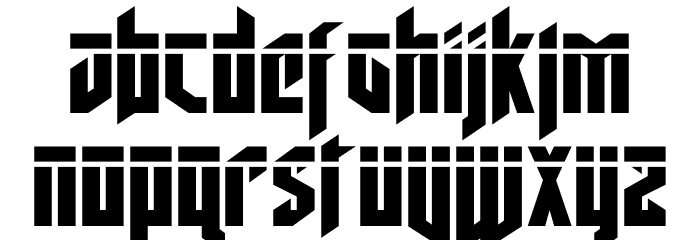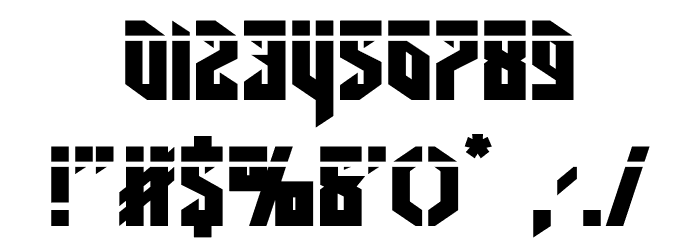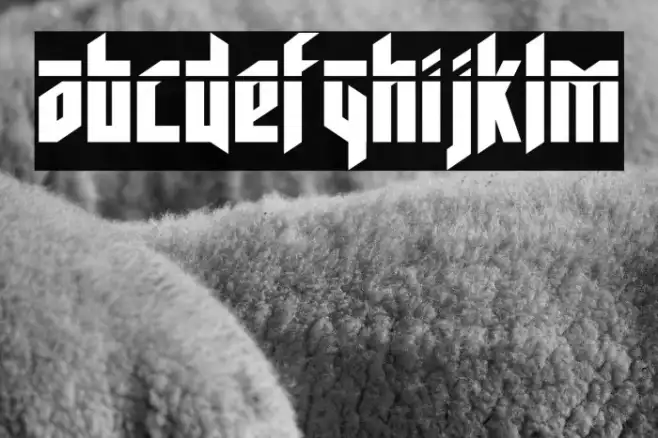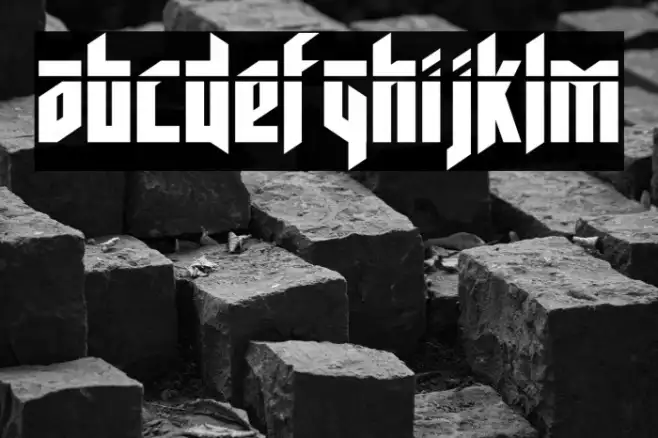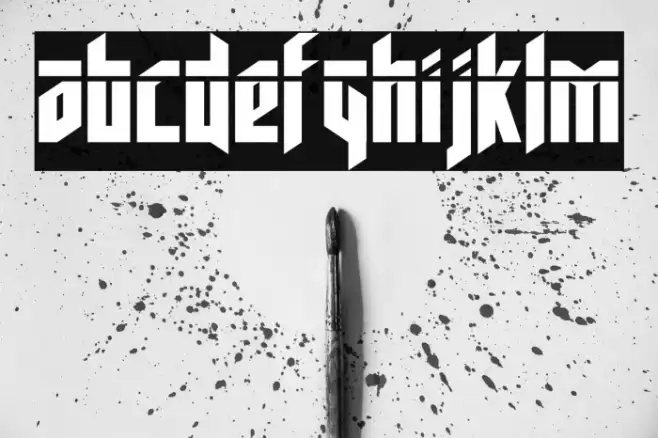
Deathshead Laser Font
This font features a bold, angular design with sharp edges and geometric shapes, creating a futuristic and aggressive appearance. The characters are heavily stylized, with a consistent use of straight lines and acute angles, giving it a distinct, modern look. The uppercase and lowercase letters maintain a uniform height, contributing to its blocky and compact feel. The numbers and special characters follow the same design principles, ensuring a cohesive visual style throughout. This font's unique aesthetic makes it stand out, ideal for projects that require a strong, impactful visual statement.
A bold, angular font with a futuristic and aggressive style.
- Font: Deathshead Laser
- Proposed Projects: Ideal for sci-fi themed designs, video game titles, posters, and branding that requires a strong, modern impact.
- Character Spacing: Tight